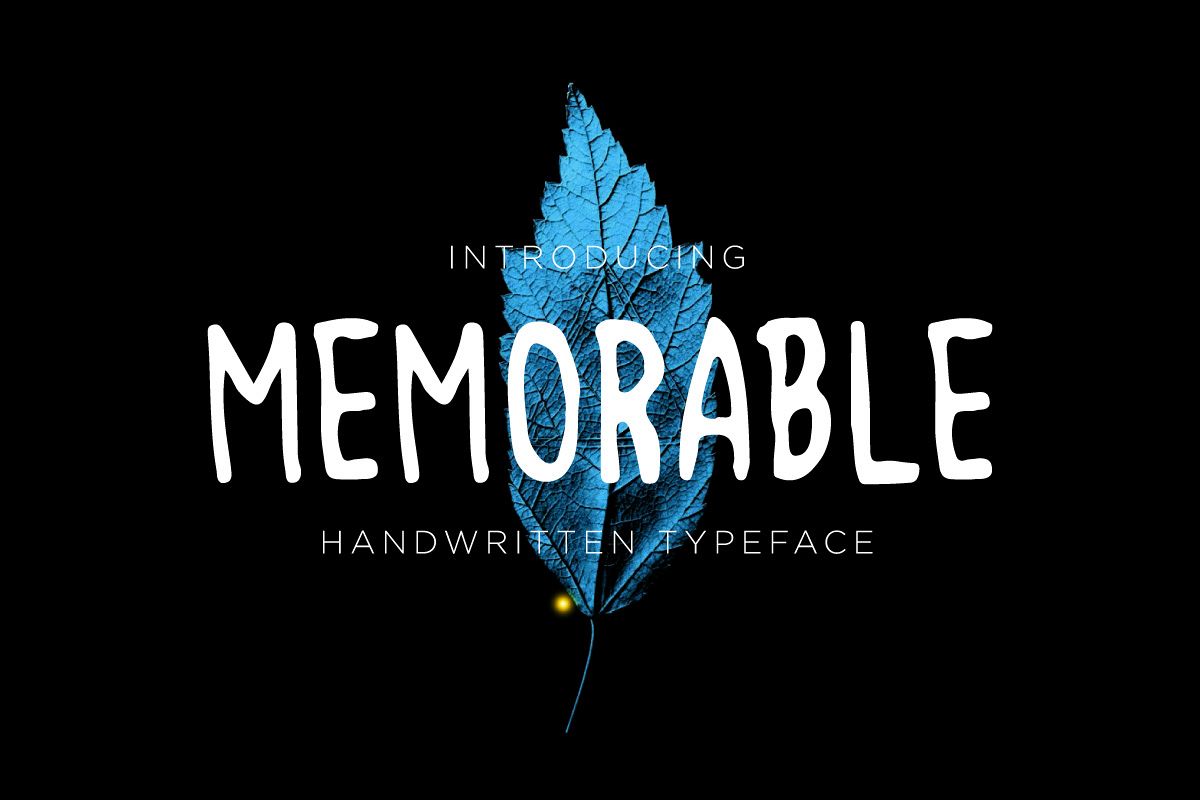
Memorable
Meet the new Modern handwritten typeface Memorable!
MEMORABLE - A new handwritten font. Very suitable for greeting cards, branding materials, business cards, quotes, posters, tees, pillow and more!